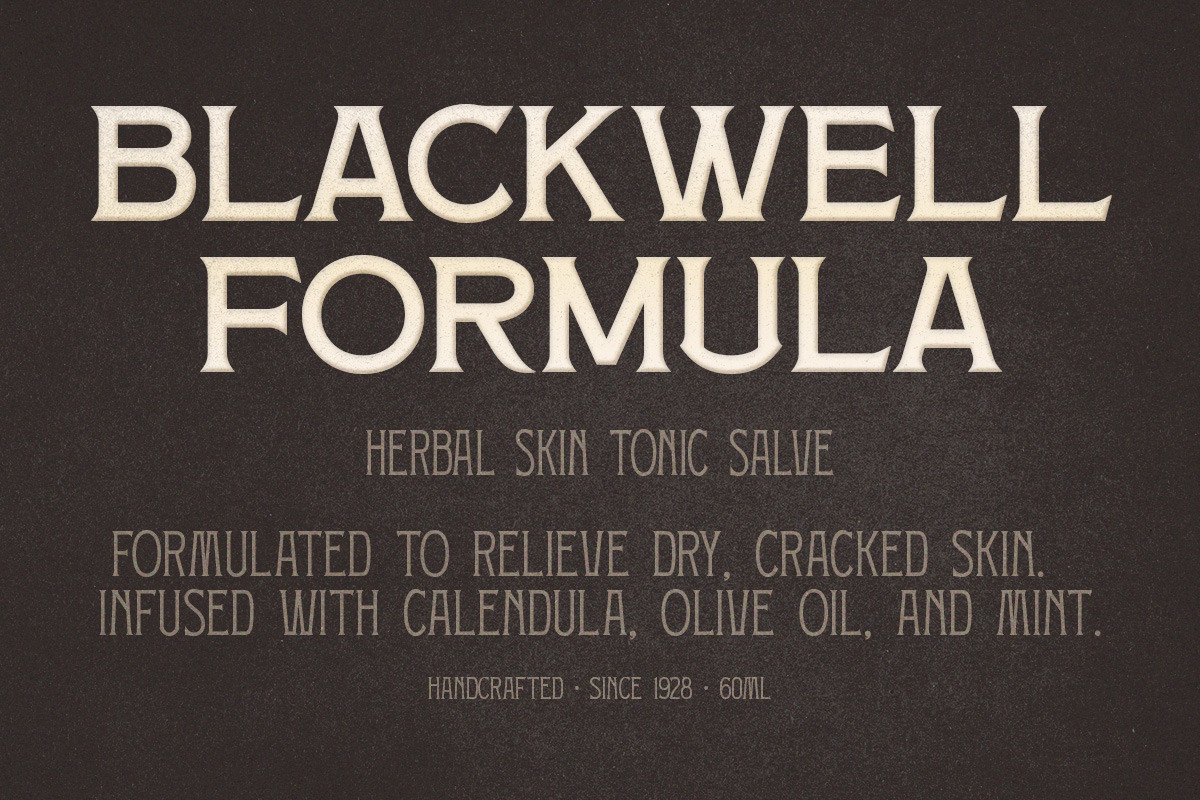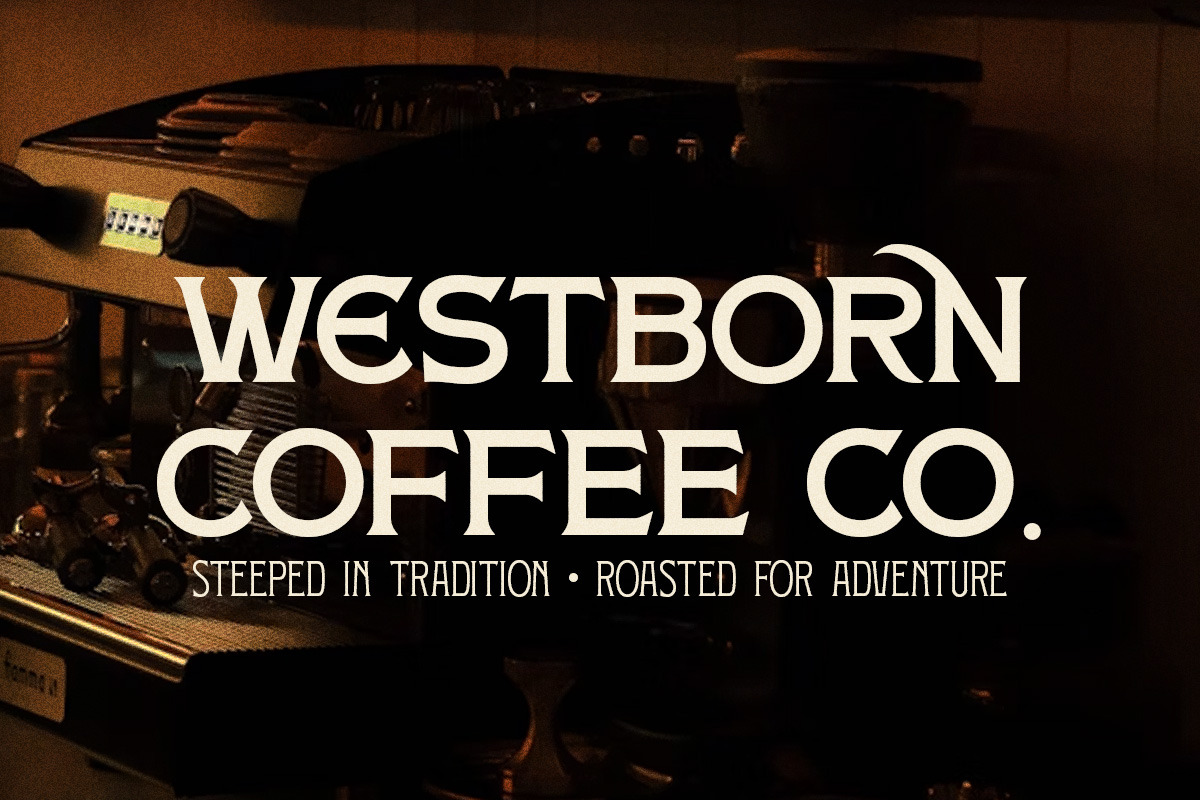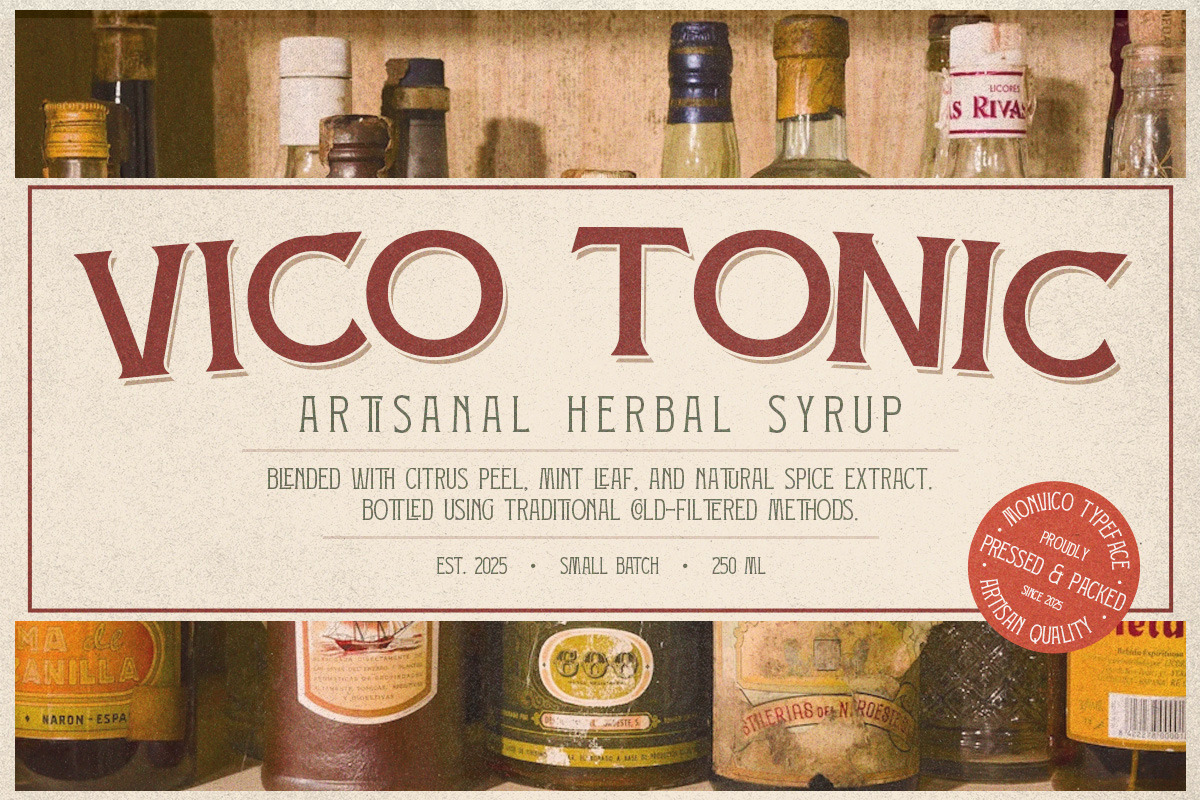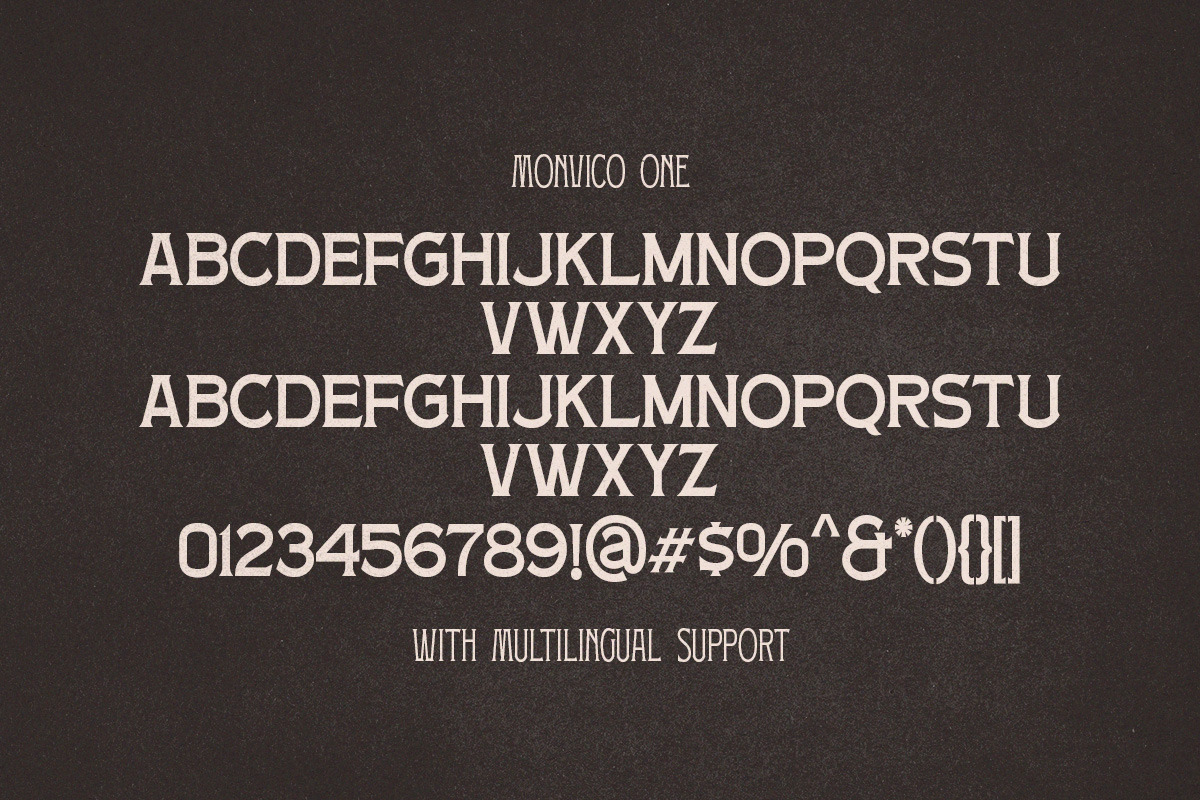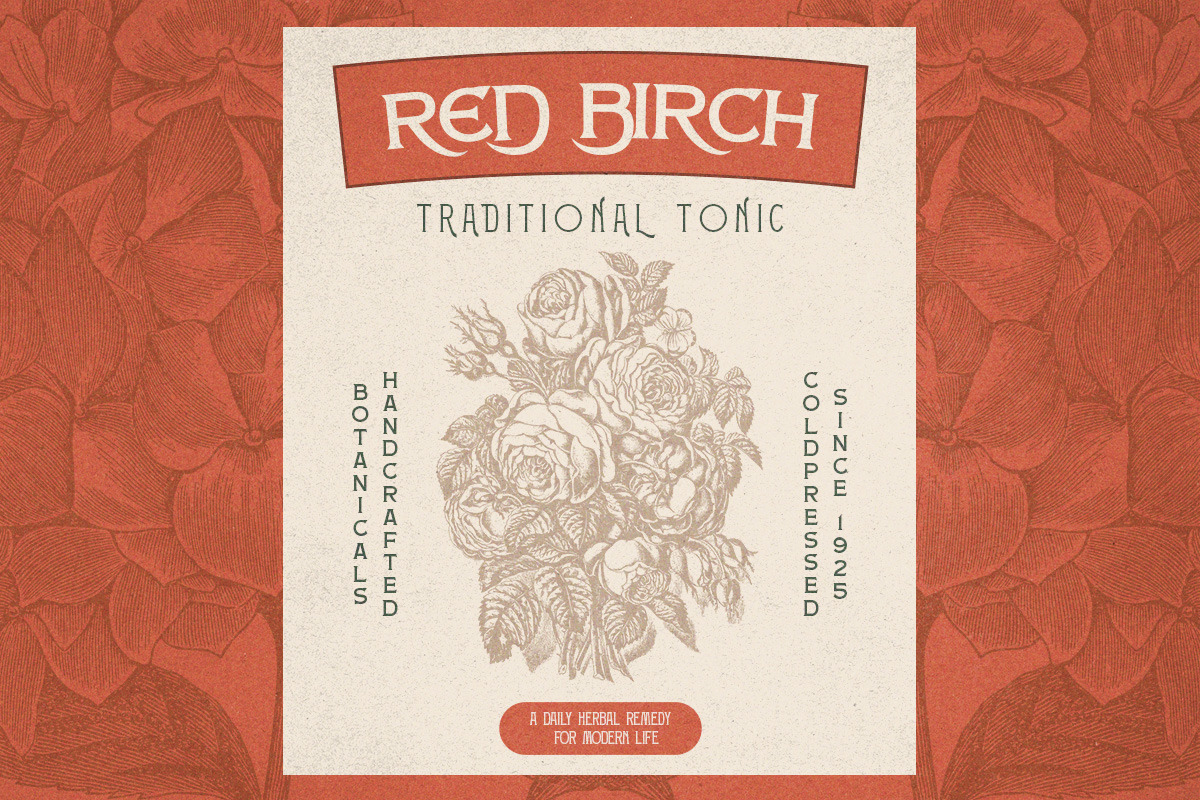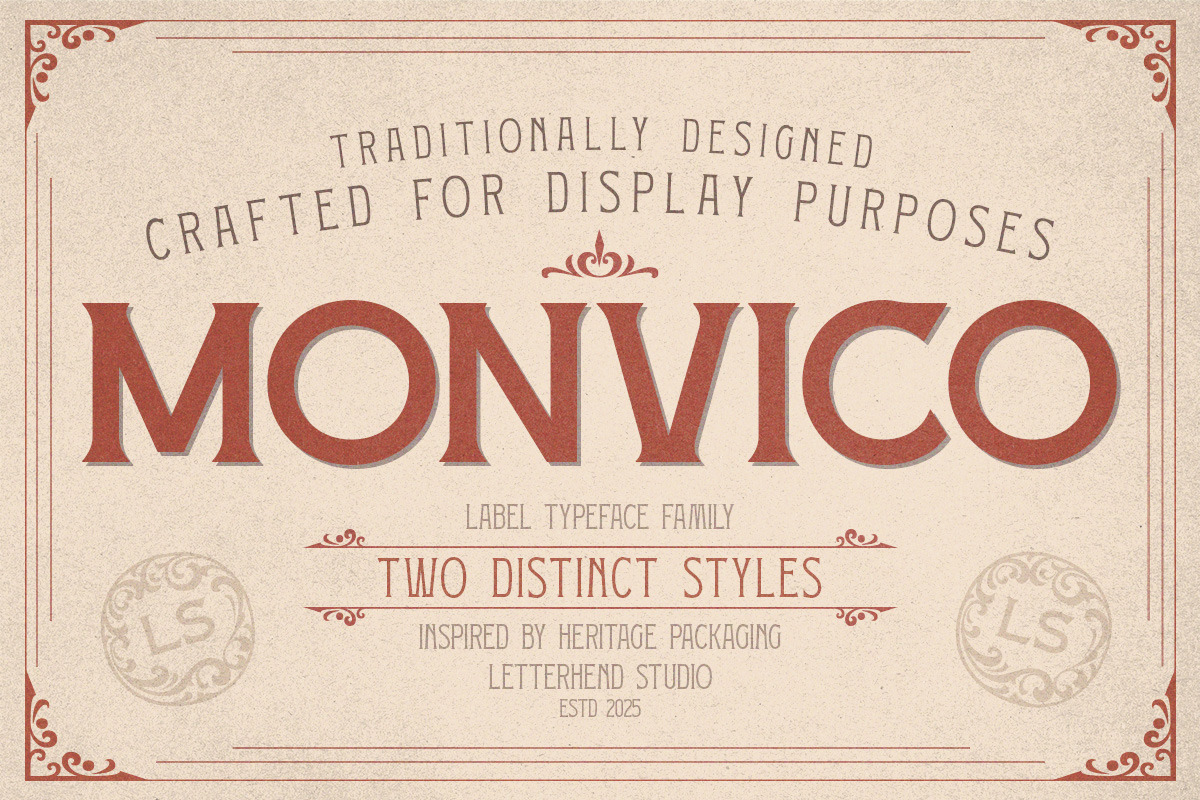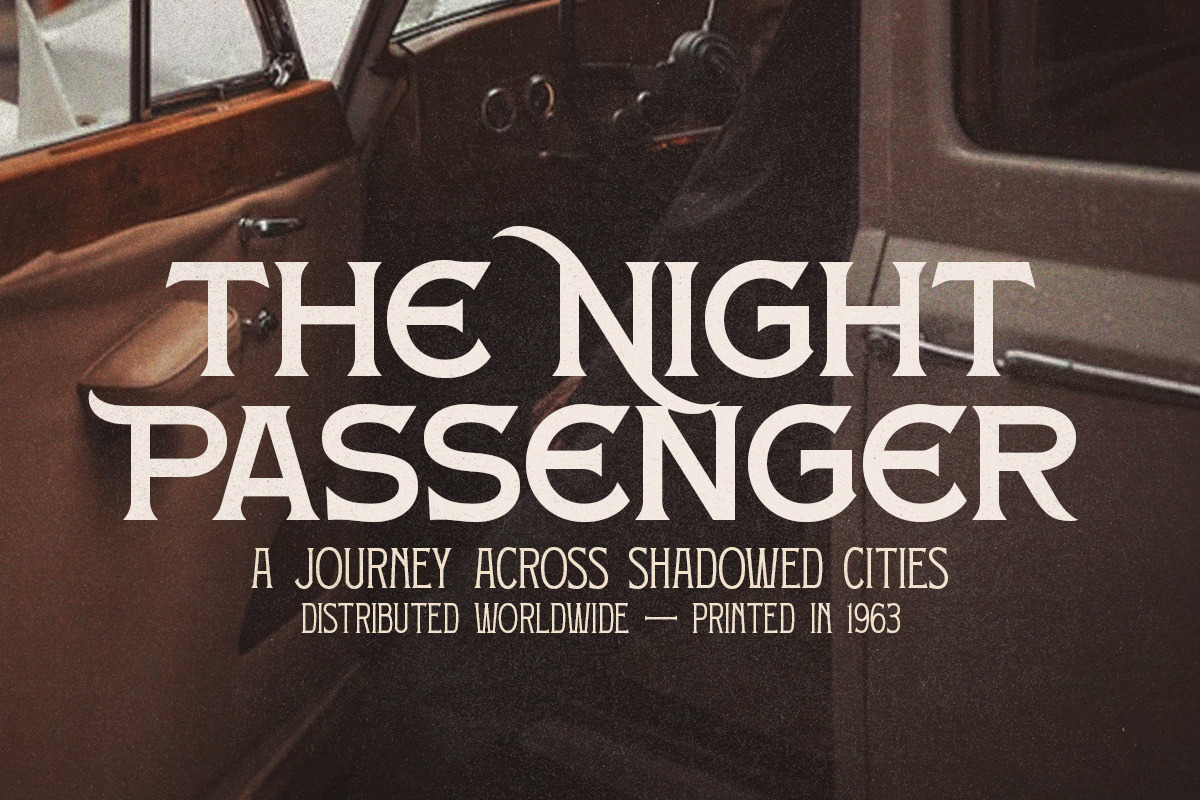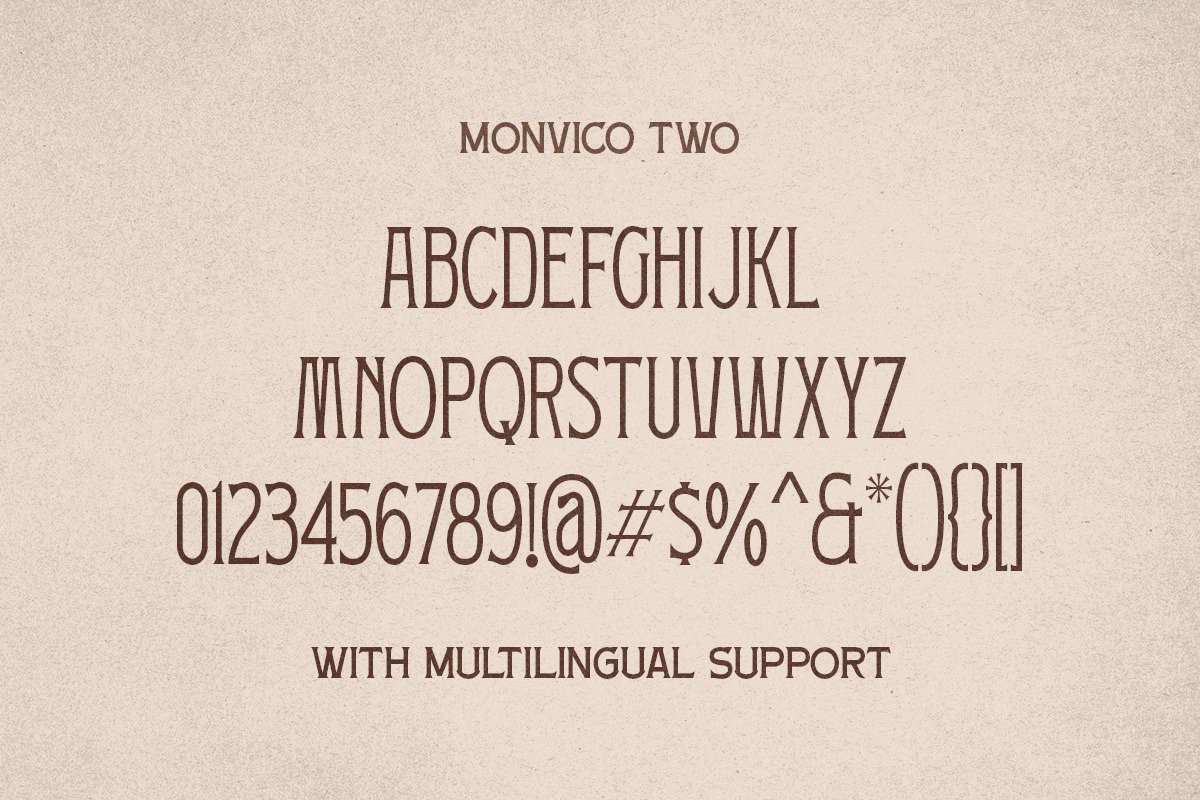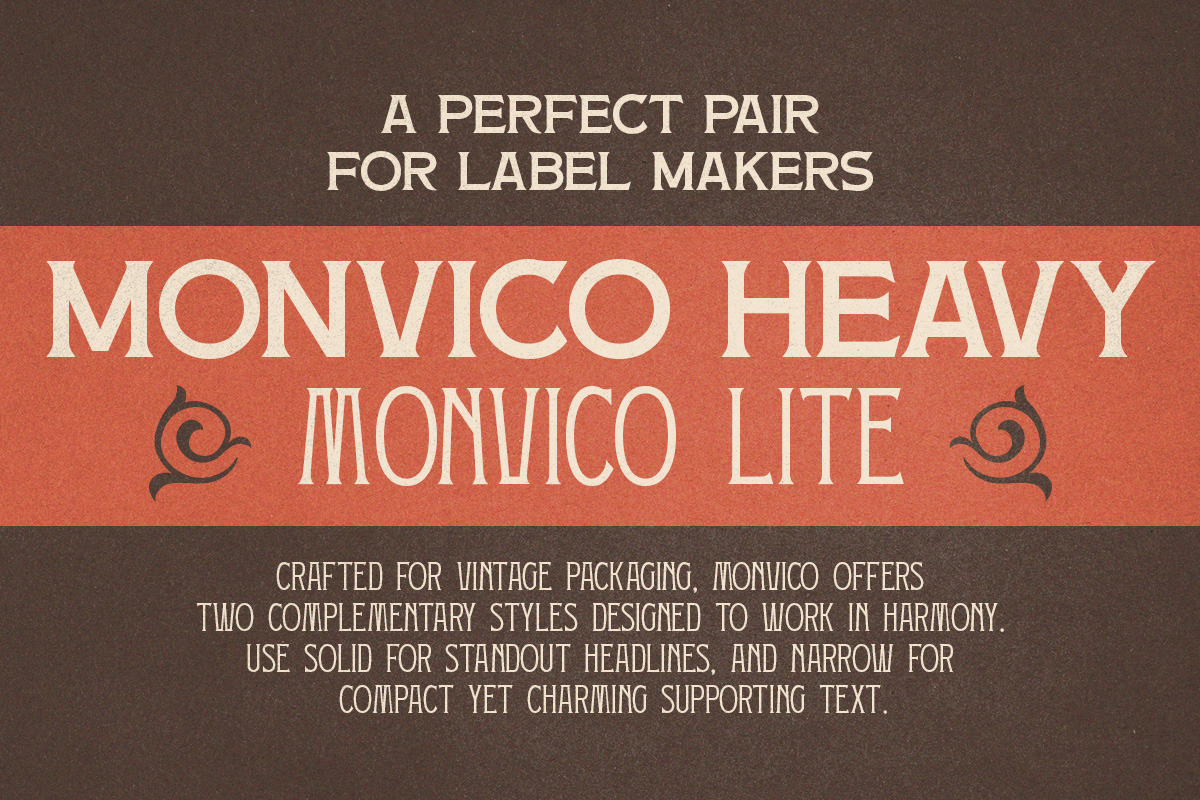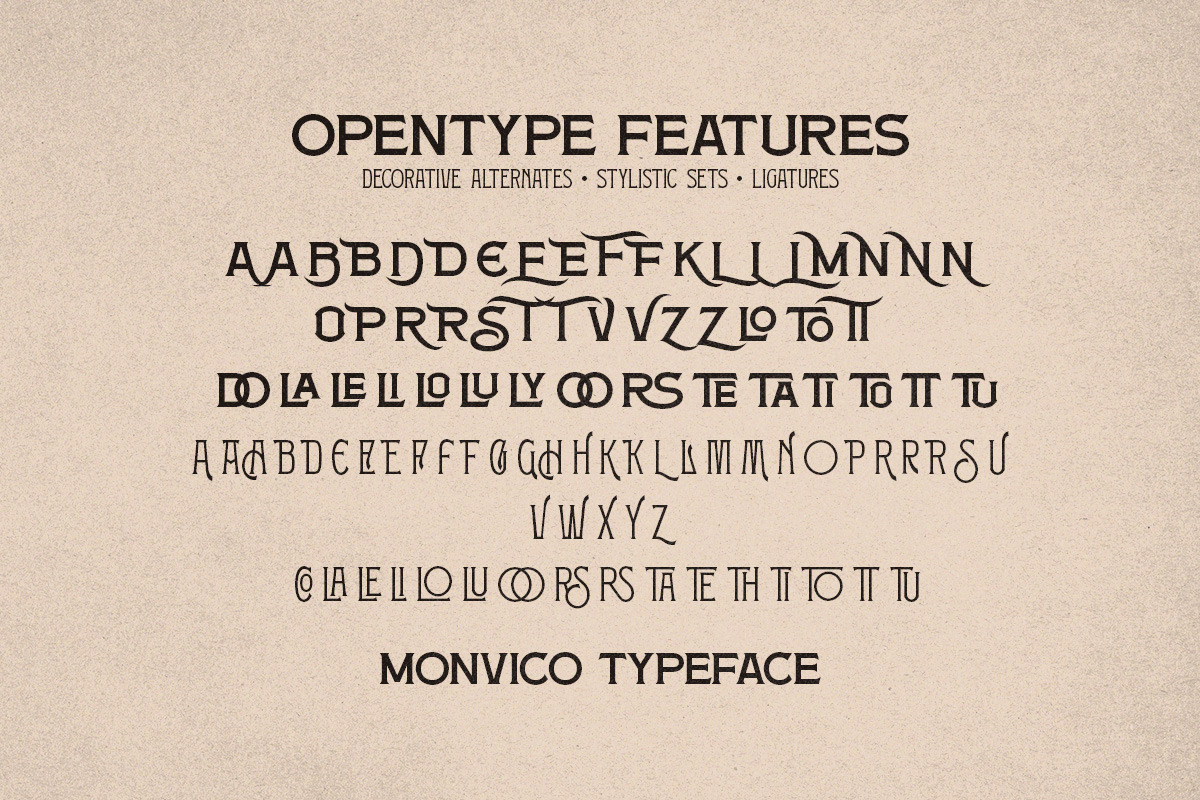
Monvico - Label Display Font
Monvico is a bold and vintage-inspired label display font, carefully crafted with a traditional touch. It offers two distinct styles that are perfect for creating a strong visual identity, especially in designs inspired by heritage packaging and old-world branding.